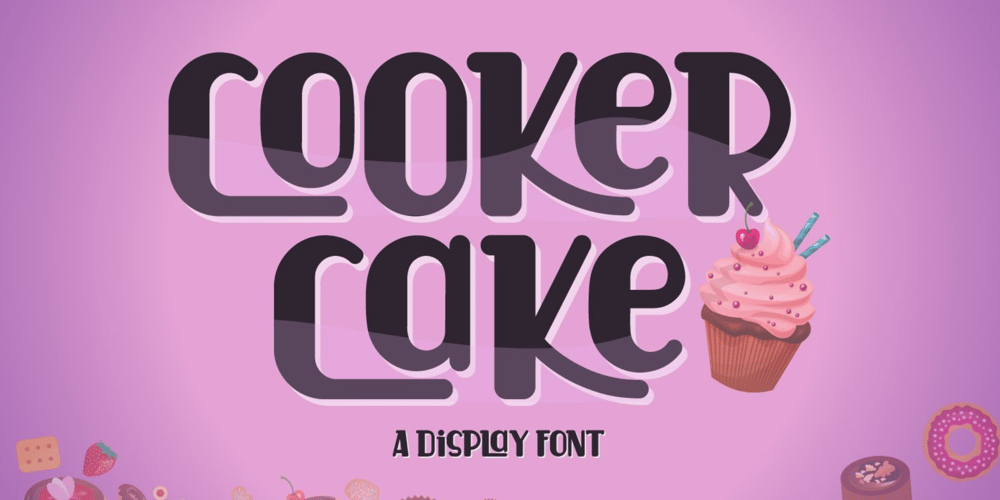
Cooker Cake Font Family was designed by Irpan Maulana and published by Sabrcreative. Cooker Cake contains 1 styles and family package options. Elevate your design projects with Cooker Cake, a vibrant and playful sans serif display font. With its charismatic style and versatile nature, this font adds a touch of excitement and creativity to any typography-based endeavor. Whether you’re designing logos, posters, headers, or website elements, Cooker Cake will captivate your audience and make your text pop.Cooker Cake features all capital letters, giving your designs a bold and impactful appearance. The font also includes a wide range of numbers and punctuation, ensuring that your compositions are complete and functional. Its multilingual support allows you to incorporate various languages seamlessly, making it ideal for global projects.One of the standout features of Cooker Cake is its PUA (Private Use Area) encoding. This means that you have access to additional special characters, glyphs, and ligatures, expanding your creative possibilities and enabling you to add unique flourishes to your designs. Let your imagination run wild as you explore the various alternates and stylistic options available in this font.With its sans-serif style, Cooker Cake strikes the perfect balance between modern aesthetics and a playful vibe. It works harmoniously in both digital and print formats, making it suitable for a wide range of applications. From branding and packaging to social media graphics and advertising campaigns, this font will bring a sense of joy and energy to your projects.Experience the versatility and captivating charm of Cooker Cake Sans Serif Display Font. Let its playful and dynamic personality infuse your typography with excitement.